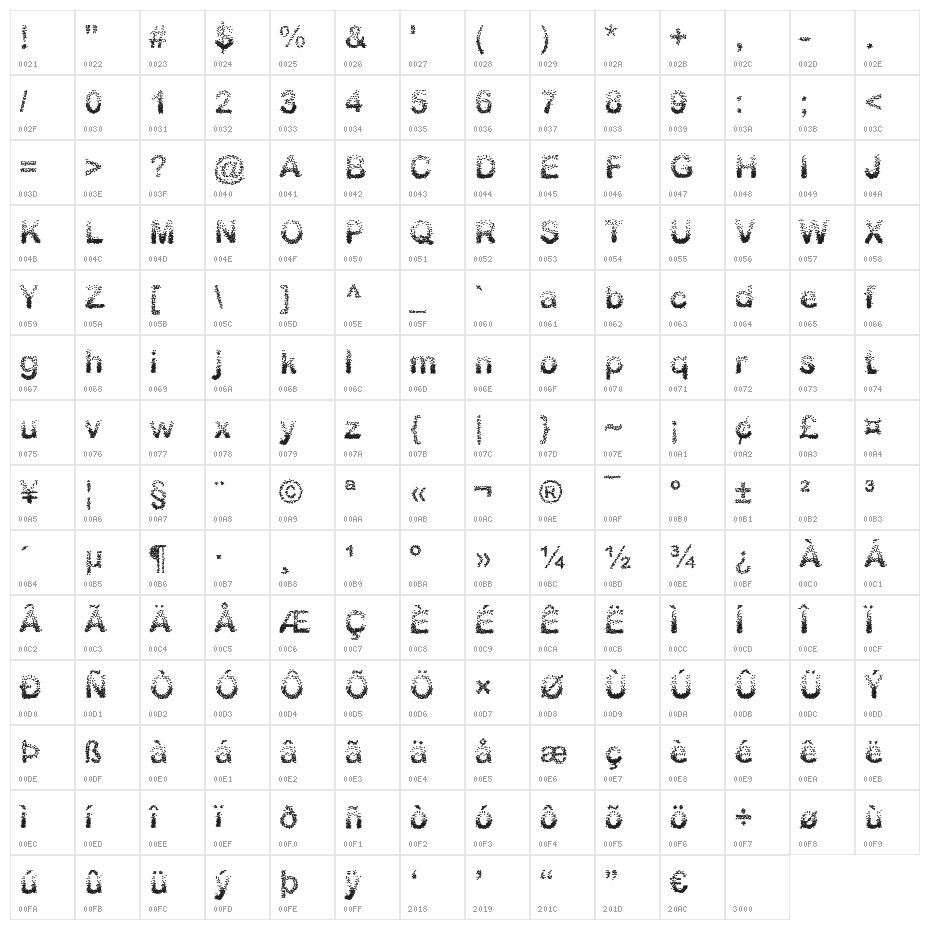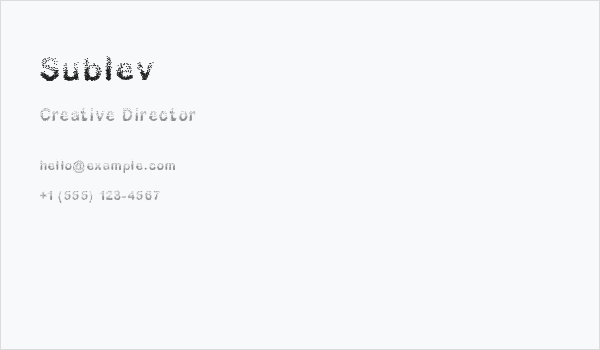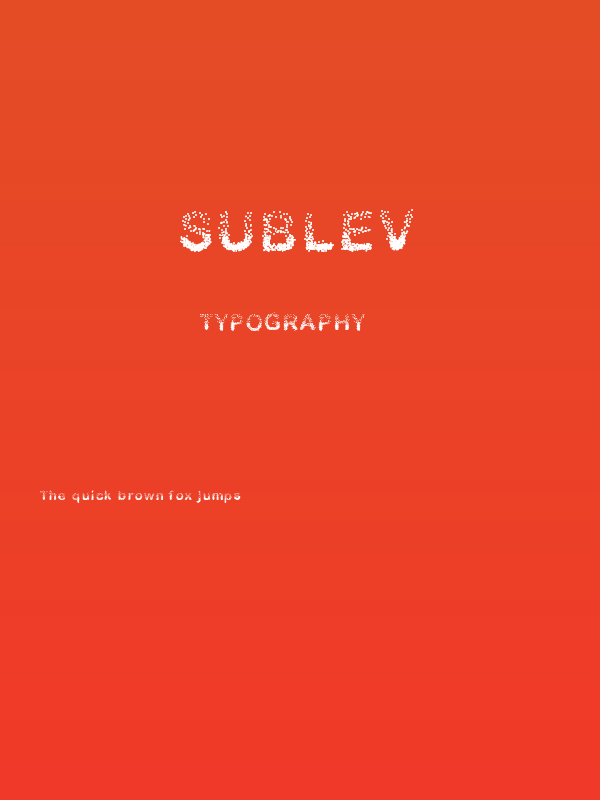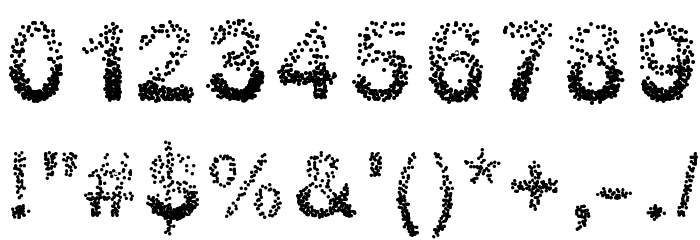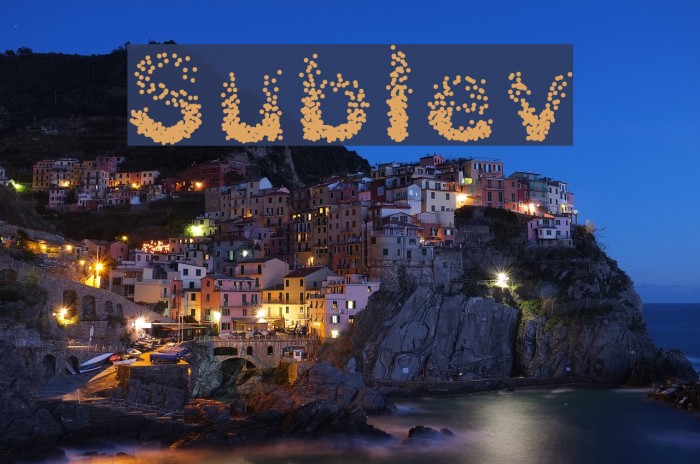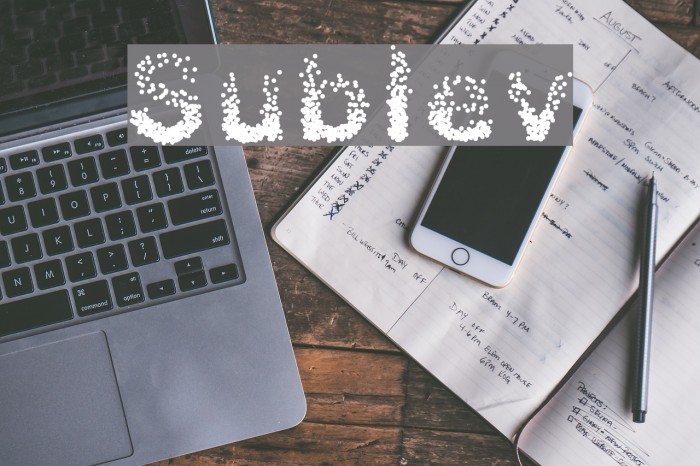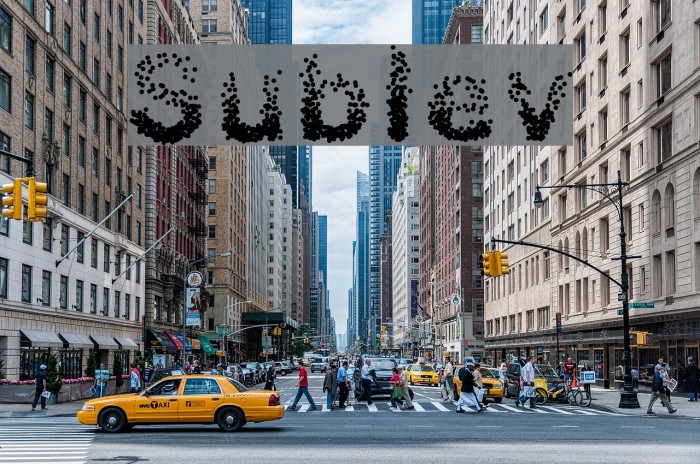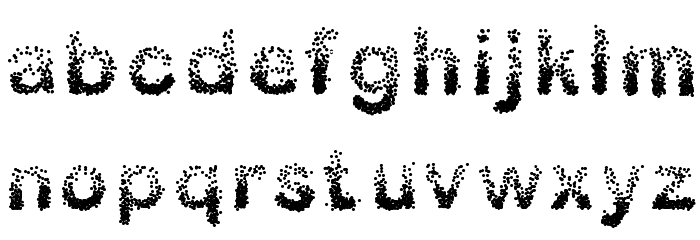
Sublev Font
Sublev Description
This font features a unique, textured appearance created by a pattern of small dots forming each character. The letters are bold and maintain a consistent weight throughout, giving them a strong presence. The style is playful and artistic, making it stand out with its decorative nature. The uppercase and lowercase letters are well-defined, and the numbers and special characters follow the same dotted pattern, ensuring uniformity across the font. The overall look is modern and creative, suitable for projects that require a distinctive and eye-catching typeface.
| Proposed Projects | Ideal for posters, creative branding, children's book covers, and artistic projects. |